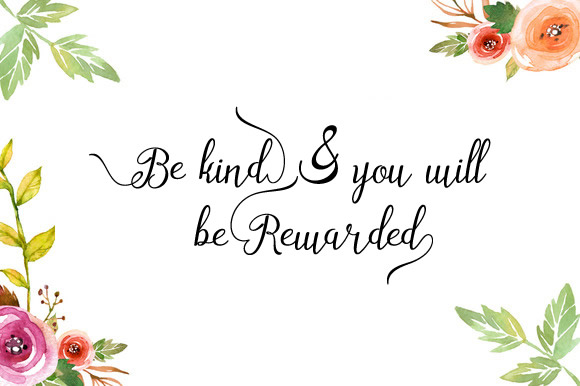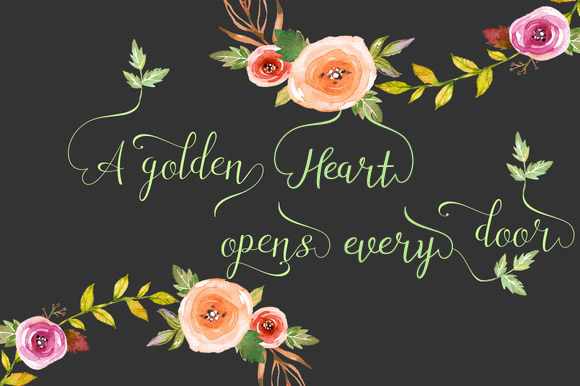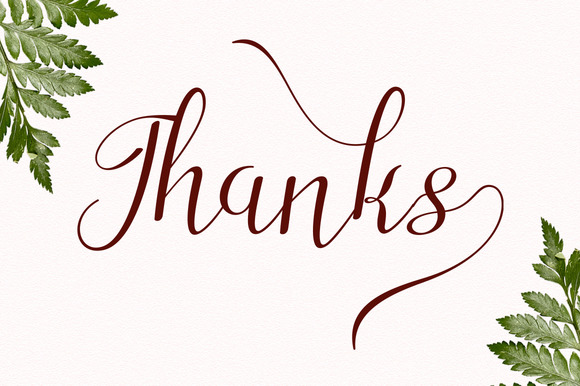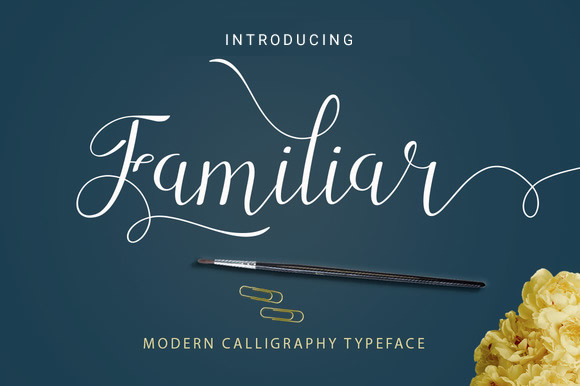
Familiar Font: Elevate Your Designs with this Stunning Handwritten Script
Are you tired of using the same old fonts in your designs? Look no further than Familiar Font, a beautiful handwritten script that is sure to take your creations to the next level. With its loads of swashes and stylistic alternates, this font is perfect for designers and crafters looking to add a touch of elegance and sophistication to their work.
What is Familiar Font?
Familiar Font is a stunning handwritten font that is packed with features, making it a versatile and valuable addition to any designer’s toolkit. This font is designed to give your text a personal and unique touch, with a range of swashes and swooshes that can be used to add flair and personality to your designs.
Key Features of Familiar Font
So, what makes Familiar Font so special? Here are just a few of its key features:
- Standard Ligatures: This font features standard ligatures, which allow you to create beautiful, flowing connections between letters.
- Stylistic Alternates: With stylistic alternates, you can choose from a range of different letterforms to add variety and interest to your text.
- Contextual Alternates: Contextual alternates allow you to create a more natural, handwritten look by automatically switching between different letterforms based on the context in which they are used.
- Stylistic Sets: This font also features stylistic sets, which allow you to create a range of different looks and styles with just a few clicks.
How to Use Familiar Font in Your Designs
So, how can you use Familiar Font in your designs? Here are a few ideas to get you started:
- Wedding Invitations: Familiar Font is perfect for wedding invitations, with its elegant swashes and swooshes adding a touch of romance and sophistication.
- Branding and Packaging: This font is also great for branding and packaging, where its unique and eye-catching design can help your product stand out on the shelf.
- Signage and Posters: Familiar Font is a great choice for signage and posters, where its bold and expressive design can help grab attention and convey your message.
- Digital Marketing Materials: This font can also be used in digital marketing materials, such as social media graphics and email templates, to add a touch of personality and style.
Tips and Tricks for Getting the Most out of Familiar Font
Here are a few tips and tricks for getting the most out of Familiar Font:
- Experiment with Different Swashes: Don’t be afraid to try out different swashes and swooshes to see what works best for your design.
- Mix and Match Letterforms: Take advantage of the font’s stylistic alternates and contextual alternates to create a unique and interesting look.
- Use it with Other Fonts: Familiar Font can be paired with other fonts to create a range of different looks and styles.
In conclusion, Familiar Font is a stunning handwritten script that is sure to elevate your designs to the next level. With its loads of swashes and stylistic alternates, this font is perfect for designers and crafters looking to add a touch of elegance and sophistication to their work. Whether you’re creating wedding invitations, branding and packaging, or digital marketing materials, Familiar Font is a versatile and valuable addition to any designer’s toolkit.